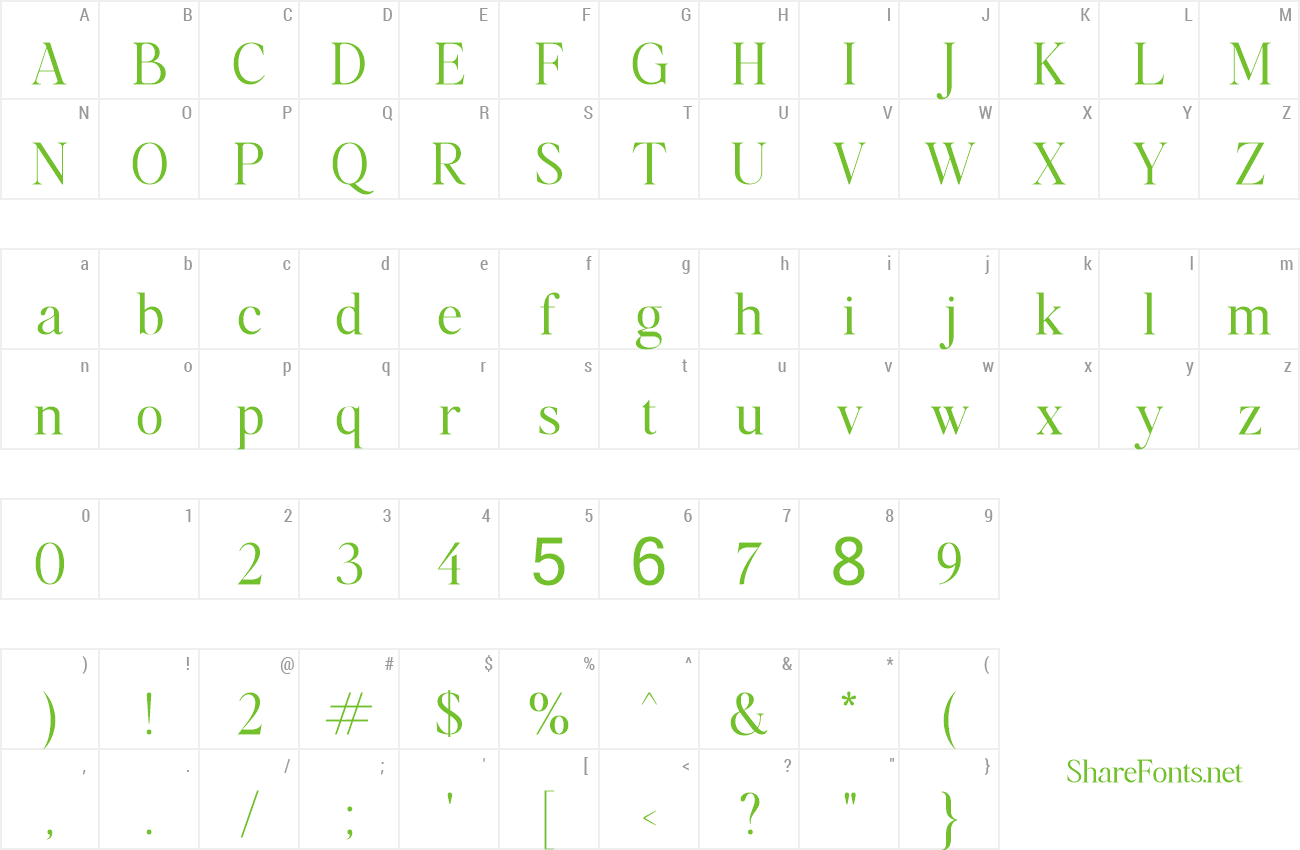
Billie Eilish Font
Billie Eilish Font - For commercial use, please order a license here:. Billie eilish serif font is a modern, elegant and classy serif typeface, best used as.
Billie eilish serif font is a modern, elegant and classy serif typeface, best used as. For commercial use, please order a license here:.
Billie Eilish Font
Billie eilish serif font is a modern, elegant and classy serif typeface, best used as. For commercial use, please order a license here:.
Billie Eilish Font
For commercial use, please order a license here:. Billie eilish serif font is a modern, elegant and classy serif typeface, best used as.
Billie eilish serif font is a modern, elegant and classy serif typeface, best used as. For commercial use, please order a license here:.
For commercial use, please order a license here:. Billie eilish serif font is a modern, elegant and classy serif typeface, best used as.
Billie Eilish Font
Billie eilish serif font is a modern, elegant and classy serif typeface, best used as. For commercial use, please order a license here:.
For commercial use, please order a license here:. Billie eilish serif font is a modern, elegant and classy serif typeface, best used as.
Billie Eilish Font
Billie eilish serif font is a modern, elegant and classy serif typeface, best used as. For commercial use, please order a license here:.
Billie Eilish Serif Font Is A Modern, Elegant And Classy Serif Typeface, Best Used As.